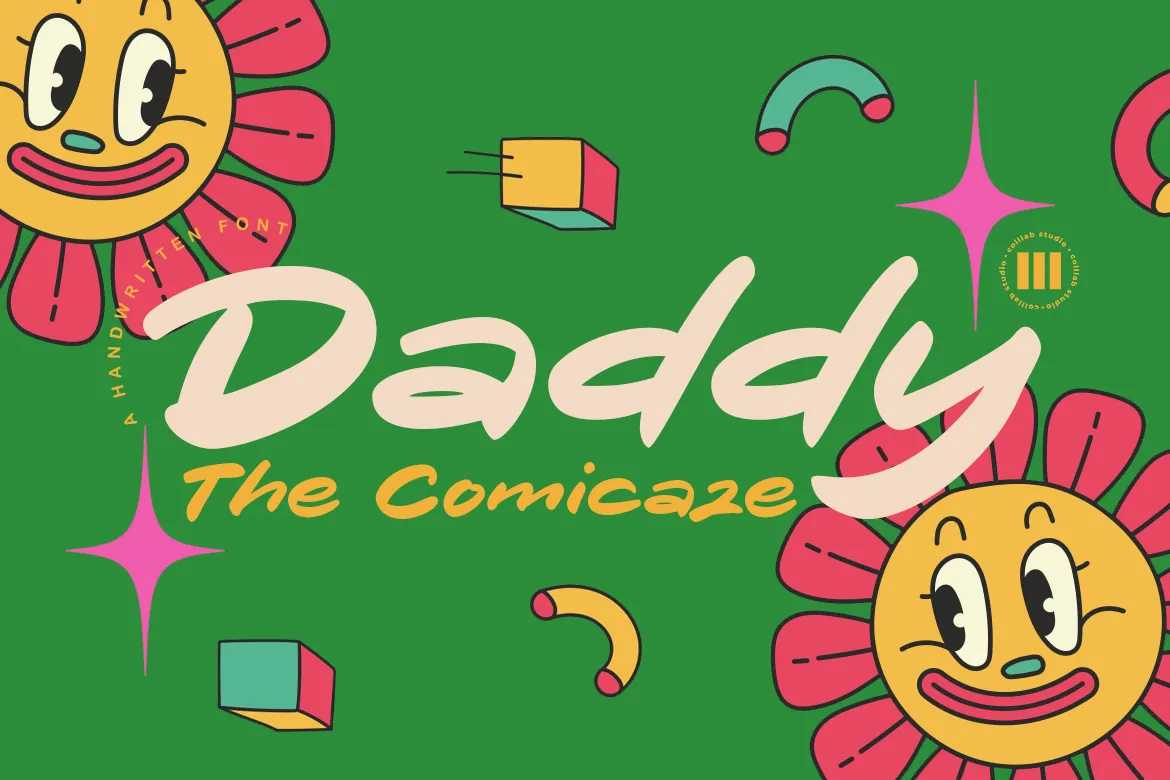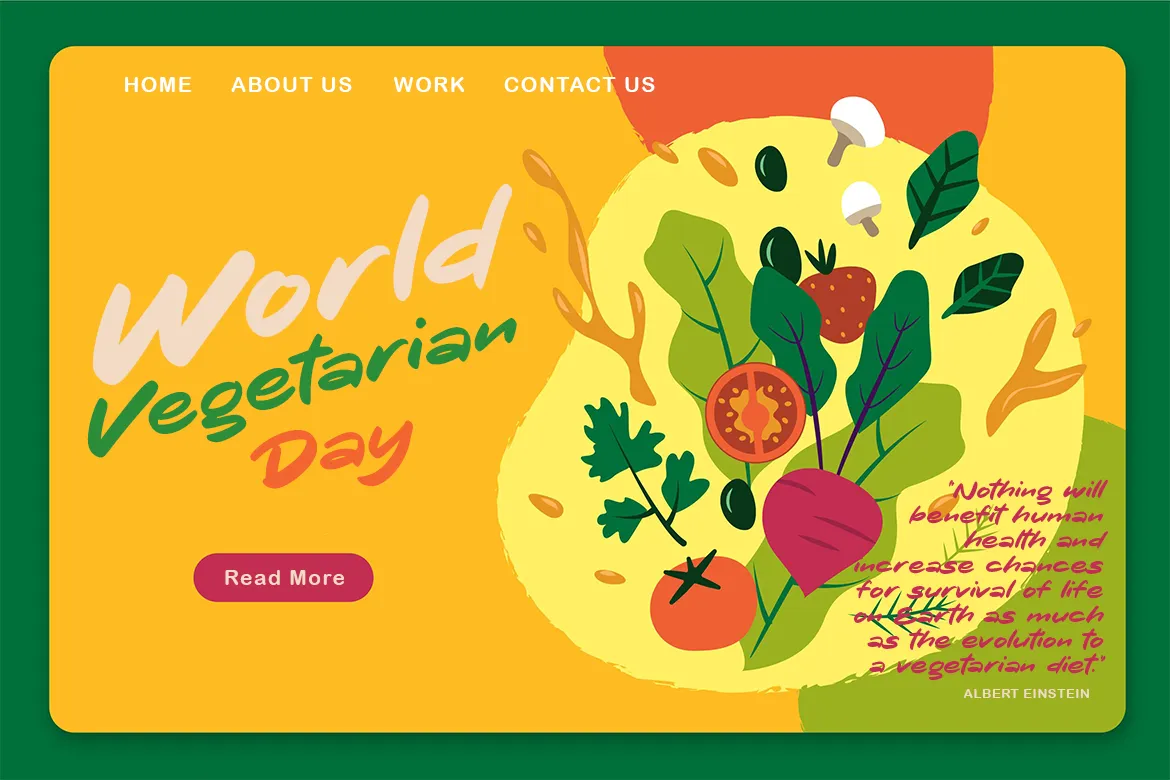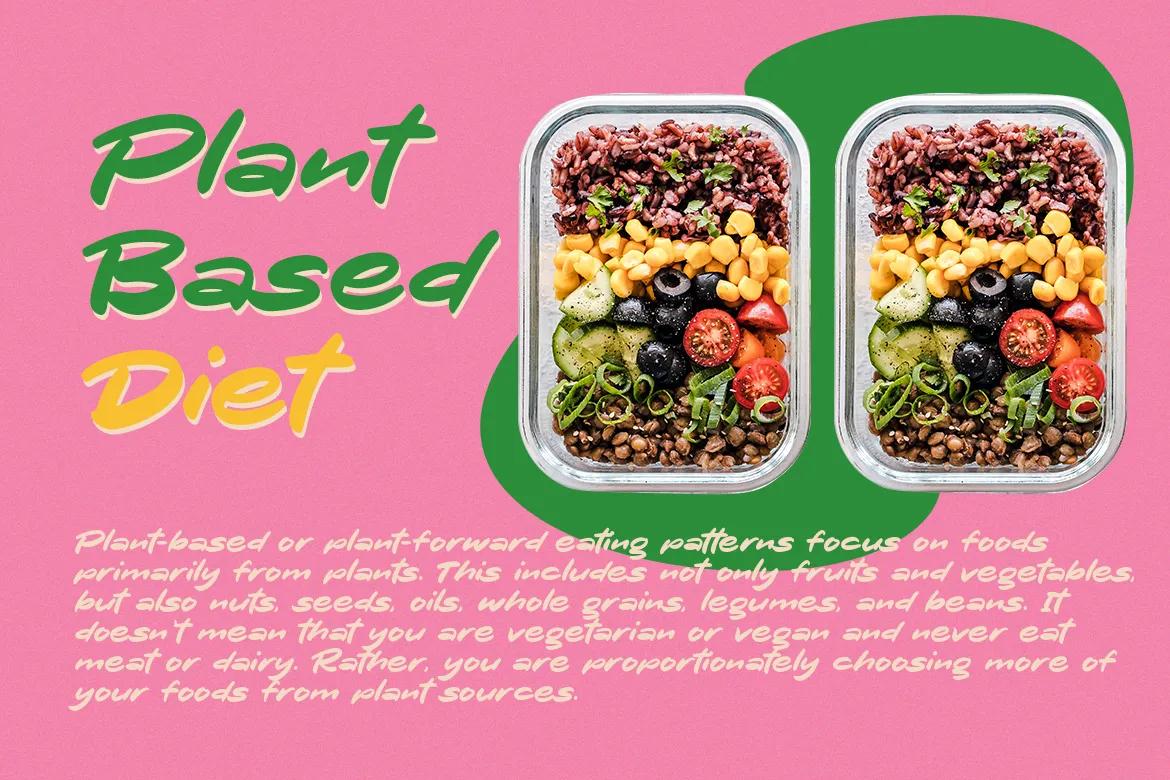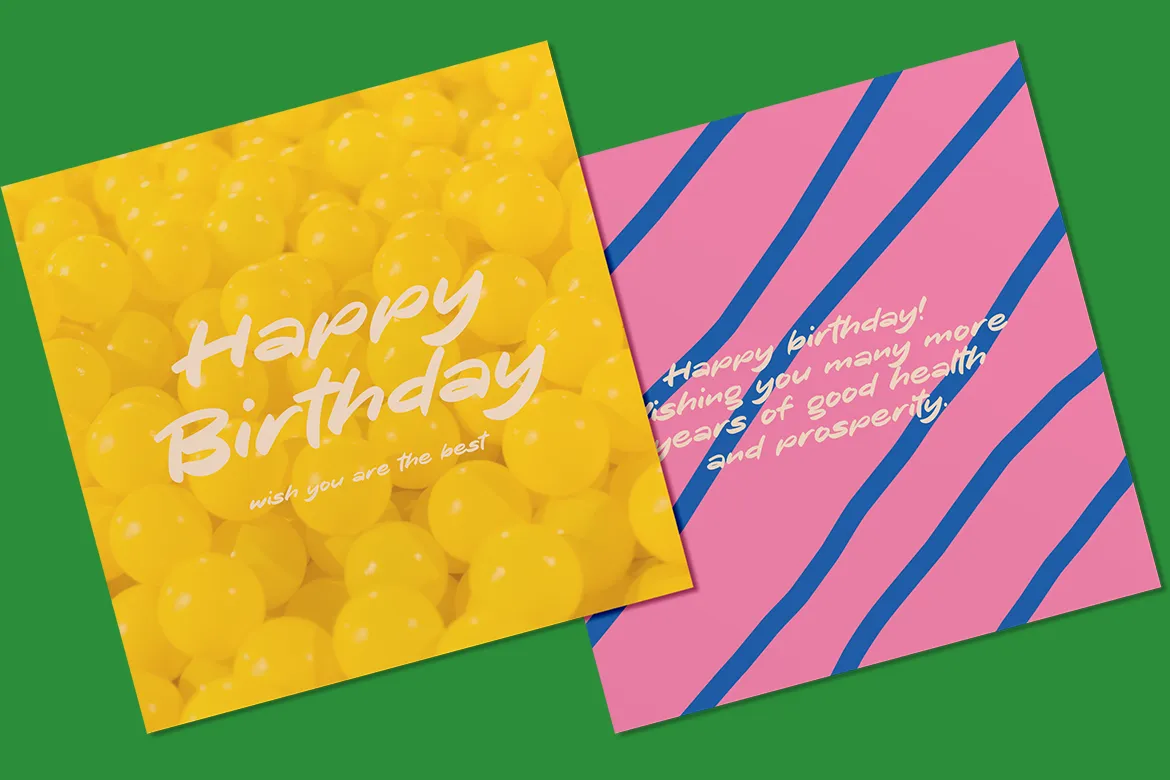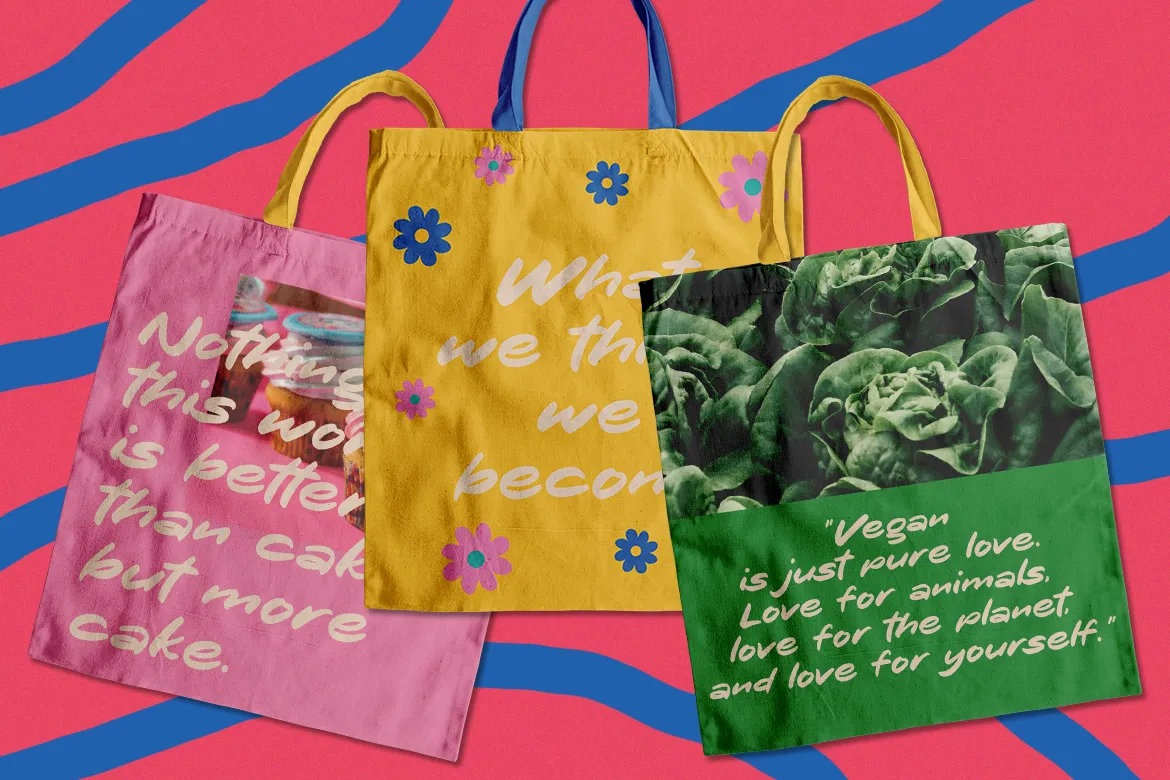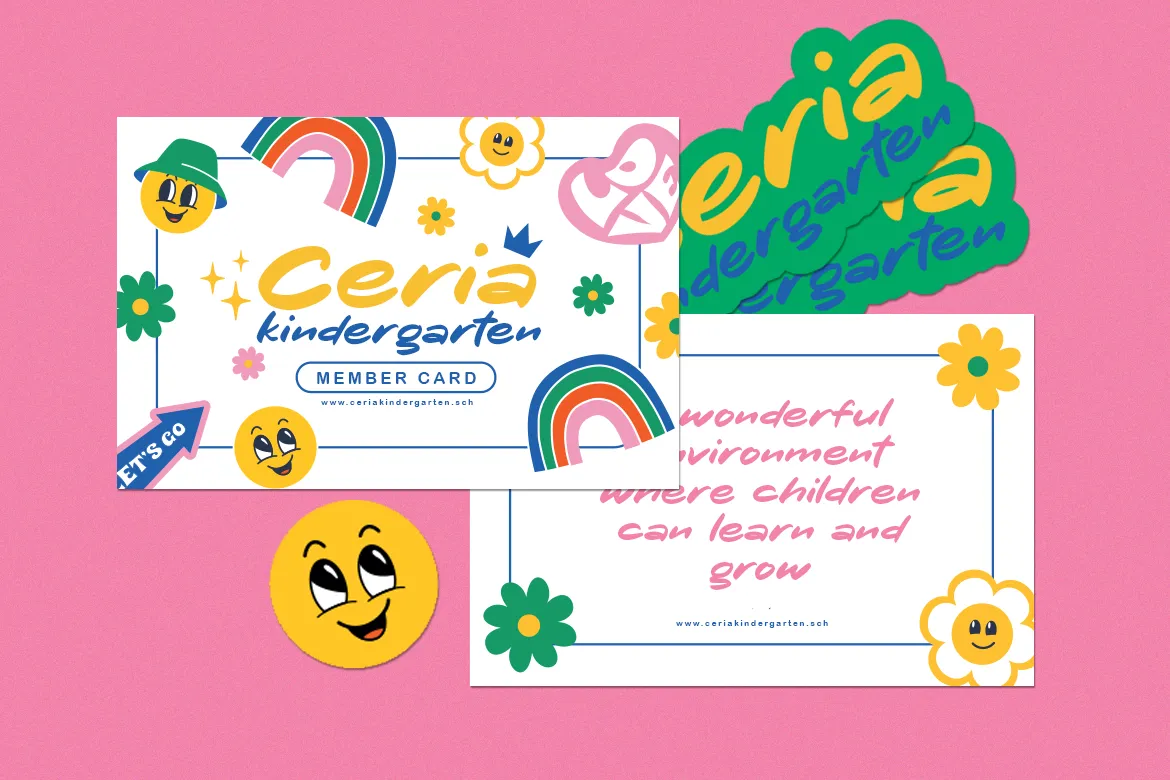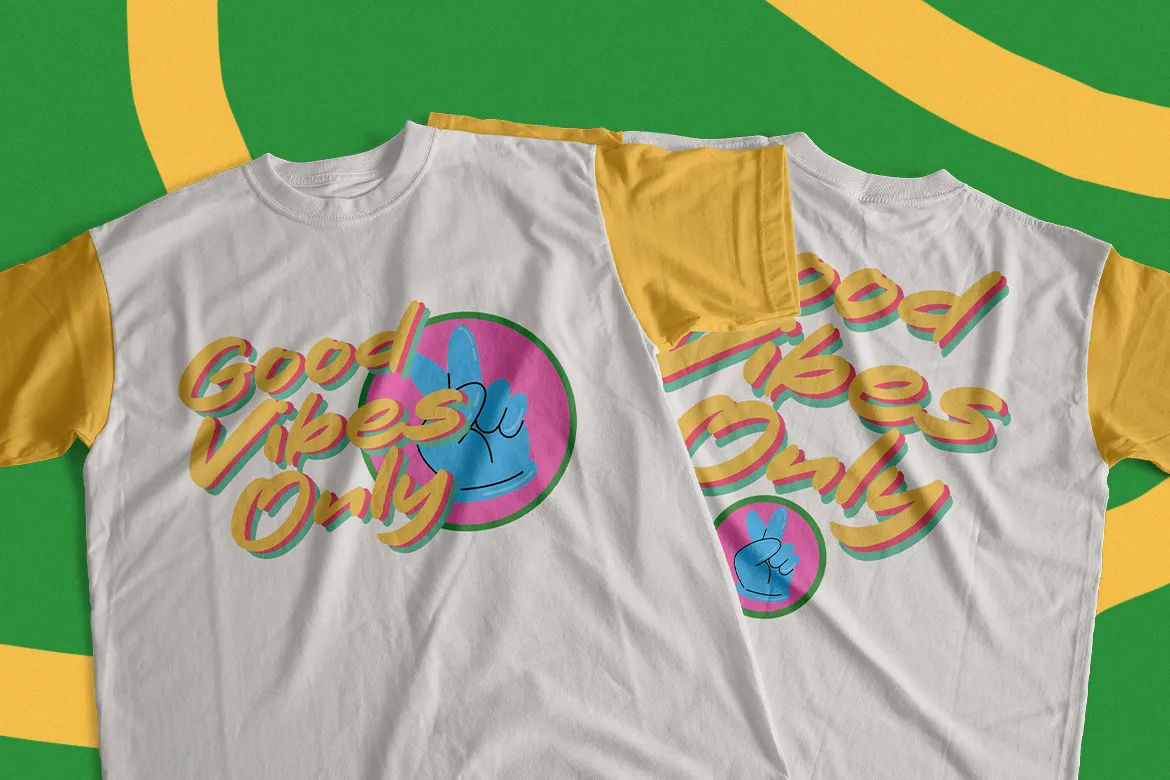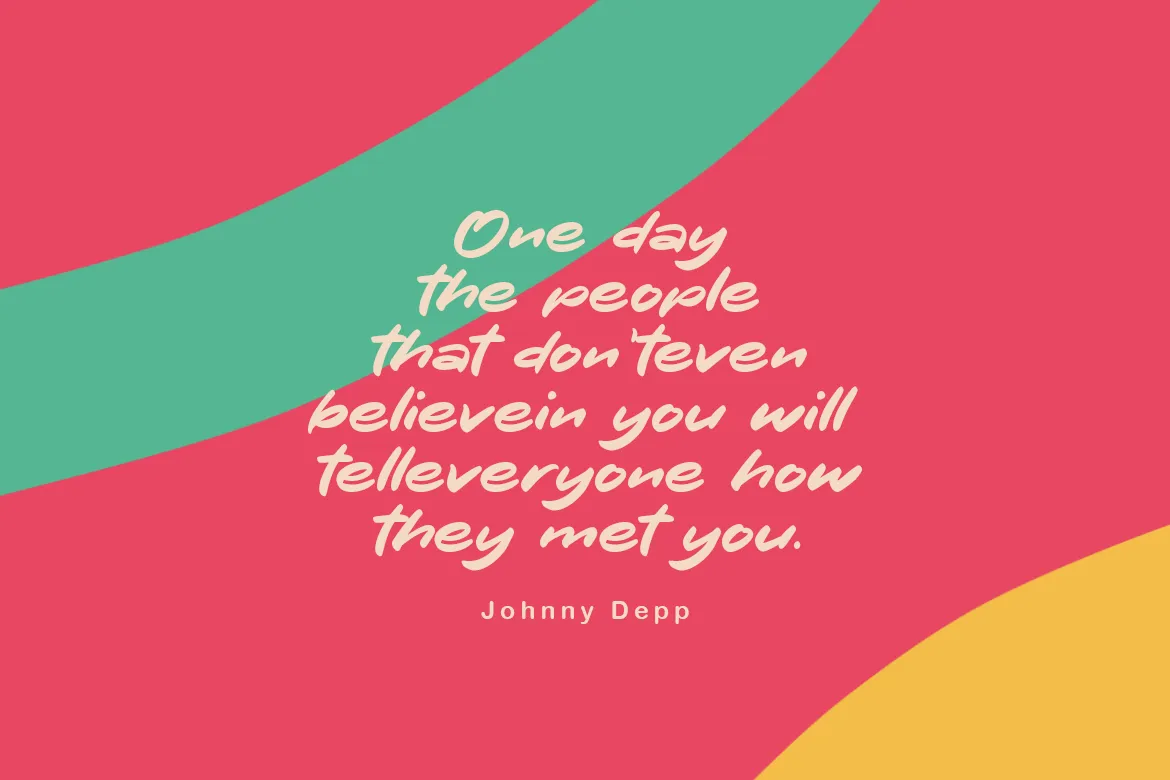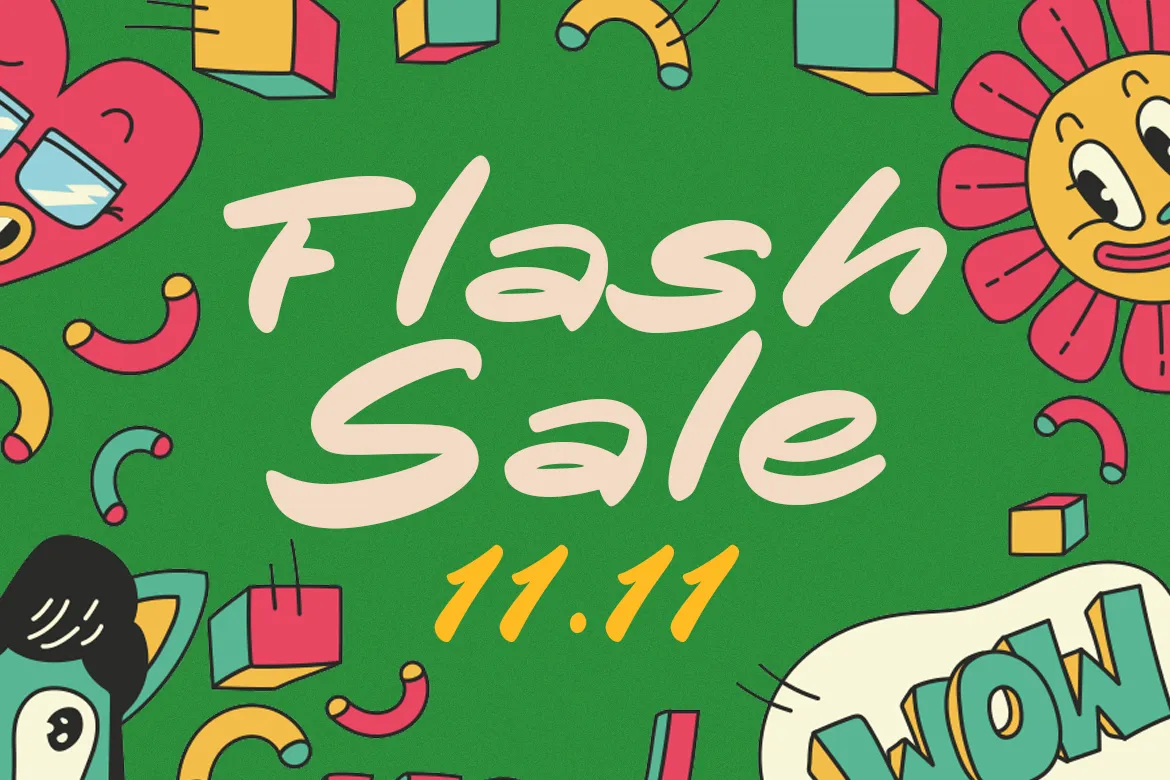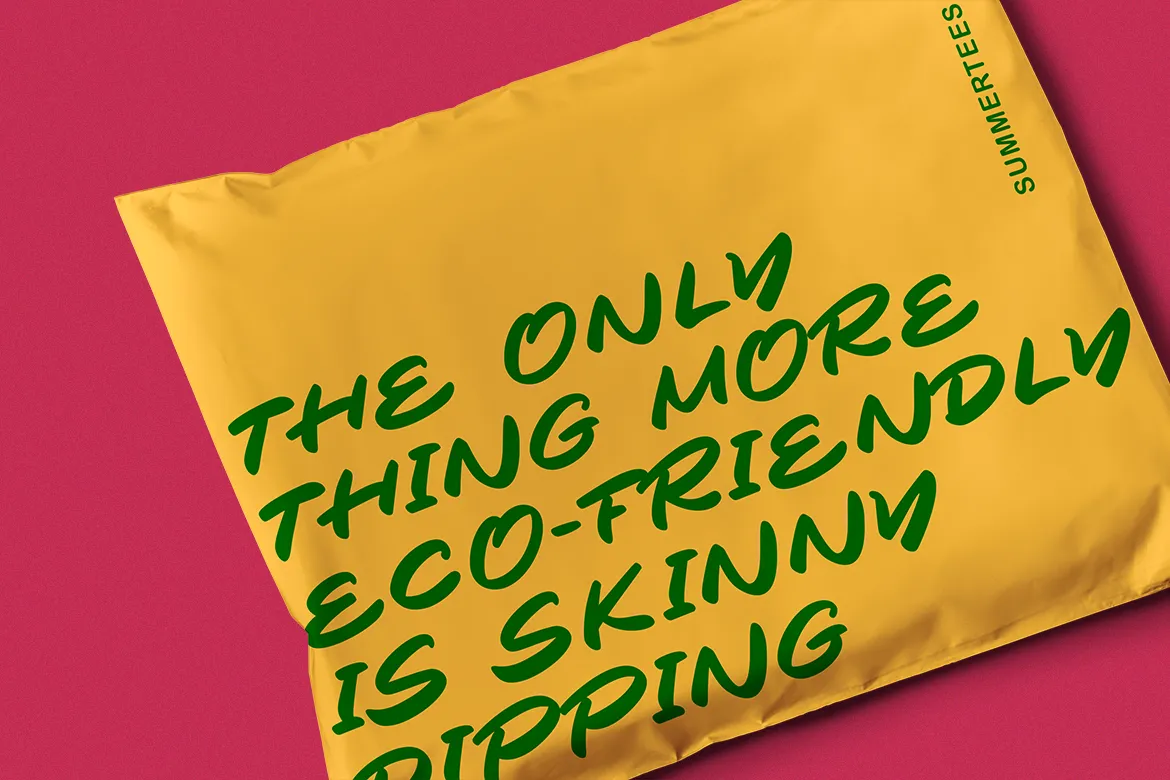
Daddy The Comicaze is fun handwriting font, it was inspired by our love of cartoons and comic books, but as always, we wanted to add a little bit of humor to it. So we played around with the kerning and spacing until we came up with something that was both fun-looking and easy to read.
What else is special about Daddy The Comicaze? Well, for one thing, it includes a lot of different characters! There are tons of punctuation marks and accented letters you won’t find in normal fonts. And since it’s based on our handwriting style, each character has its own unique personality. Basically, we’ve taken the best parts of our handwriting and turned them into a beautiful font.